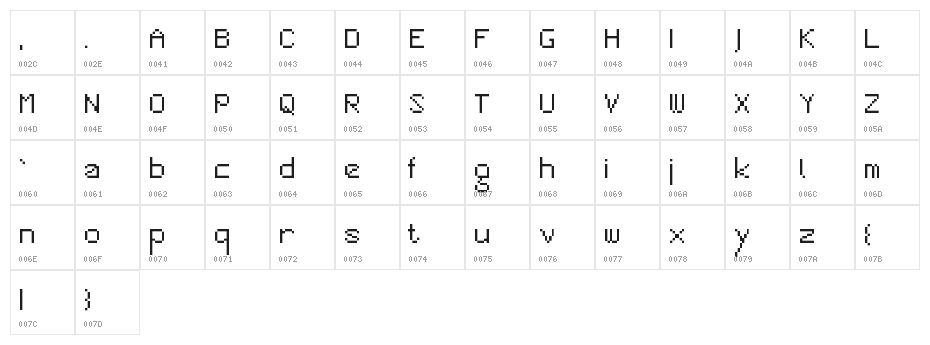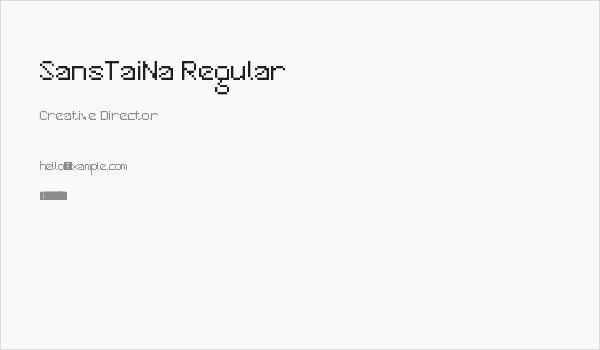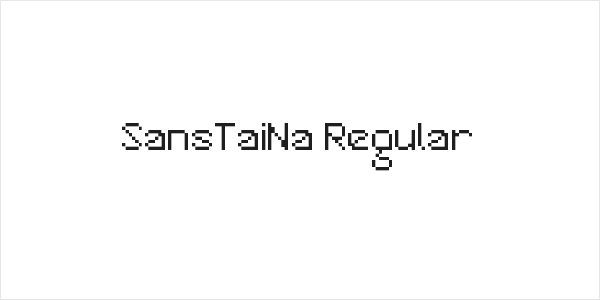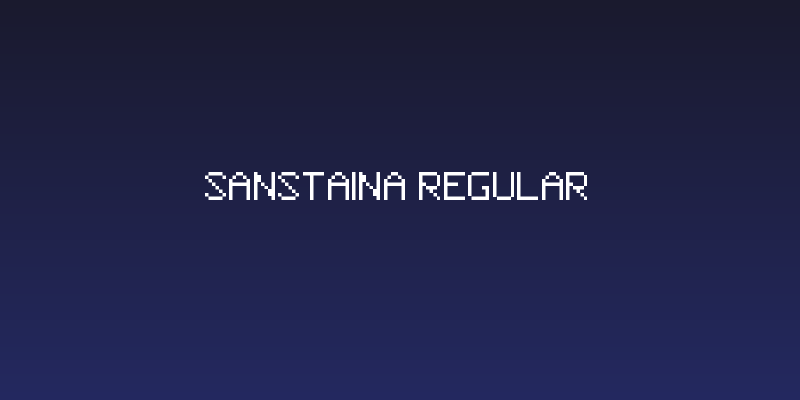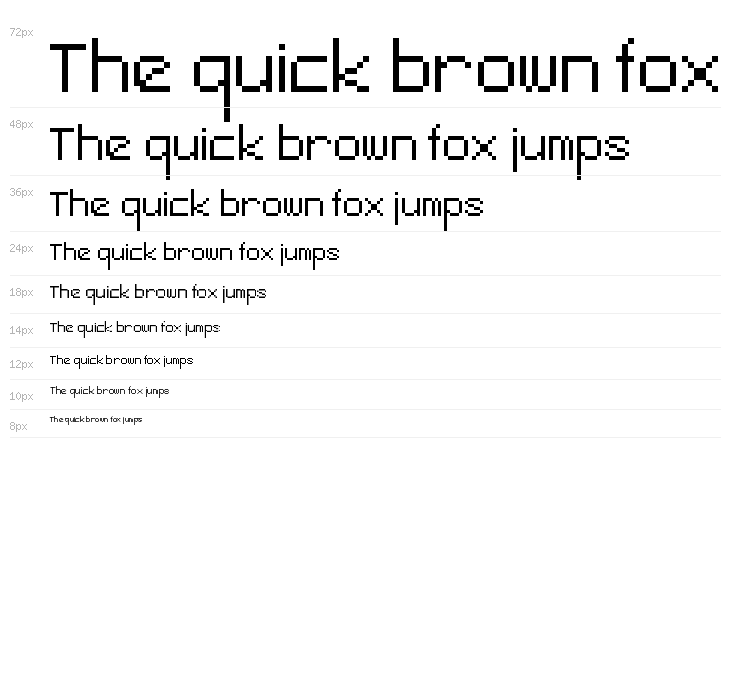
SansTaiNa Regular Font
SansTaiNa Regular Description
This font features a pixelated, blocky design that is reminiscent of early digital displays and retro video games. Each character is composed of square, uniform pixels, giving it a distinctly digital and geometric appearance. The uppercase and lowercase letters maintain a consistent height and width, contributing to a monospaced feel, although it is not strictly monospaced. The numerals and special characters follow the same pixelated style, ensuring a cohesive look across all glyphs. This font's simplicity and clarity make it highly legible, even at smaller sizes, while its unique style adds a touch of nostalgia and modernity.
| Overall Style | Retro, Digital |
| Use Case | Logos, Headlines, Digital Art |
| Proposed Projects | Ideal for retro-themed designs, video game graphics, digital art projects, and any creative work that requires a nostalgic or tech-inspired look. |